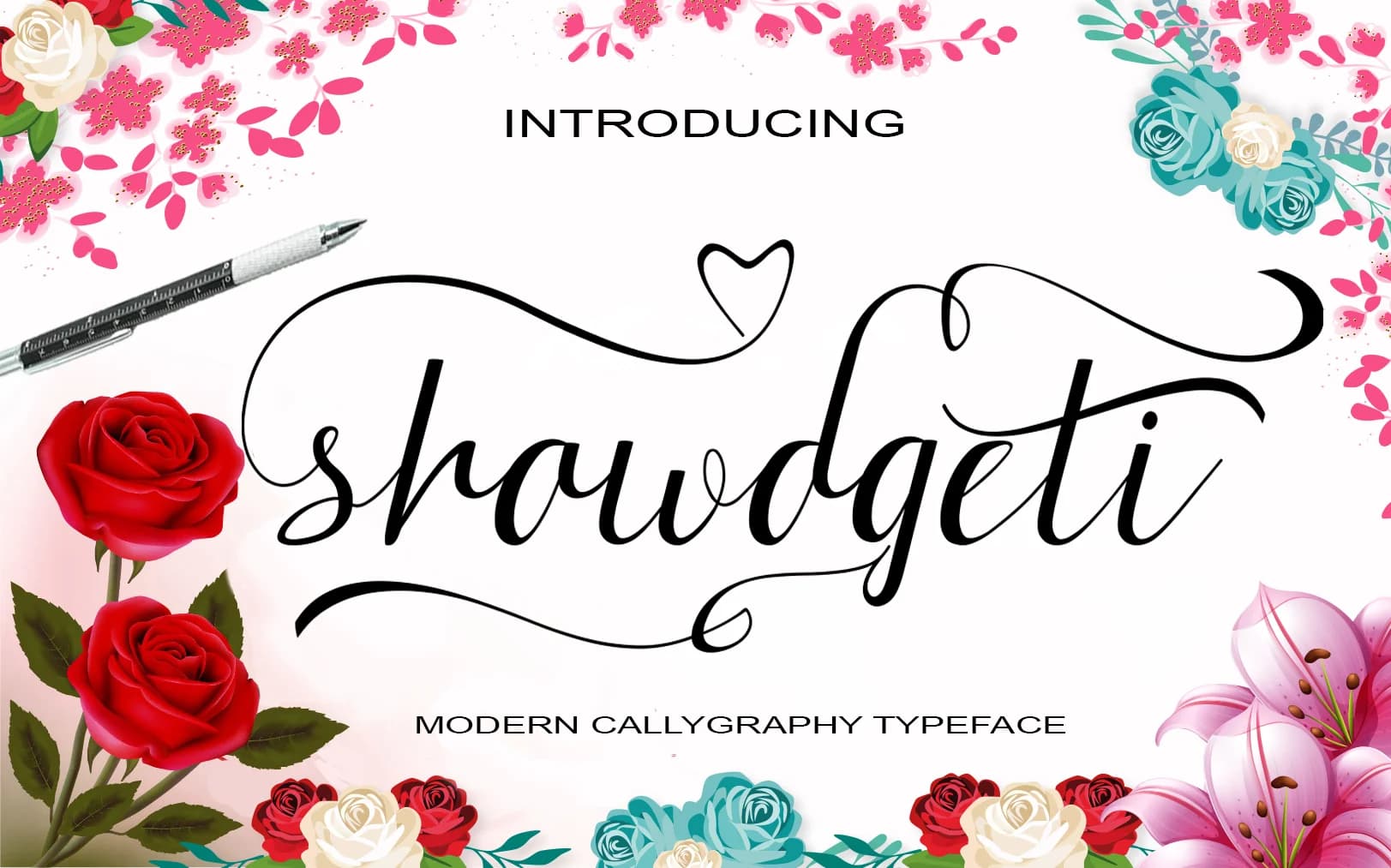
1 / 9About Shawdgeti Font
Shawdgeti by art design is a handwritten script that authentically captures the organic flow of natural pen strokes while maintaining careful, meticulous precision in every letterform. The font expertly bridges the gap between natural, handcrafted penmanship and professional typography, making it ideal for creative projects where warmth and genuine personality are essential design elements.
This script excels in wedding invitation suites where personalized typography strengthens the romantic atmosphere, boutique skincare packaging where handwritten aesthetics communicate artisanal quality, and custom greeting card designs that demand a genuine human touch. It performs beautifully in handmade product labels for small-batch creators, independent Etsy sellers, and boutique brands seeking to establish authenticity through their typography choices. Social media quote graphics and DIY craft signage also benefit significantly from the natural rhythm and accessible warmth that Shawdgeti brings to any composition.
Whether you're designing personal stationery, correspondence materials, or comprehensive branding for a creative business, this script delivers the polished-yet-organic quality that modern designers and brand owners value. The refined, well-proportioned letterforms ensure excellent readability across various sizes while preserving the crucial handwritten character that distinguishes your work. Discover Shawdgeti on Creative Fabrica and bring this distinctive handwritten script to your personal creative design collection.
- Elegant, Flowing, Shawdgeti
Shawdgeti Font is a script font that shines as a display or heading face. Pair it with a clean sans-serif or serif font for body text β the contrast creates a clear hierarchy while the two styles stay balanced and easy to read.
Shawdgeti Font